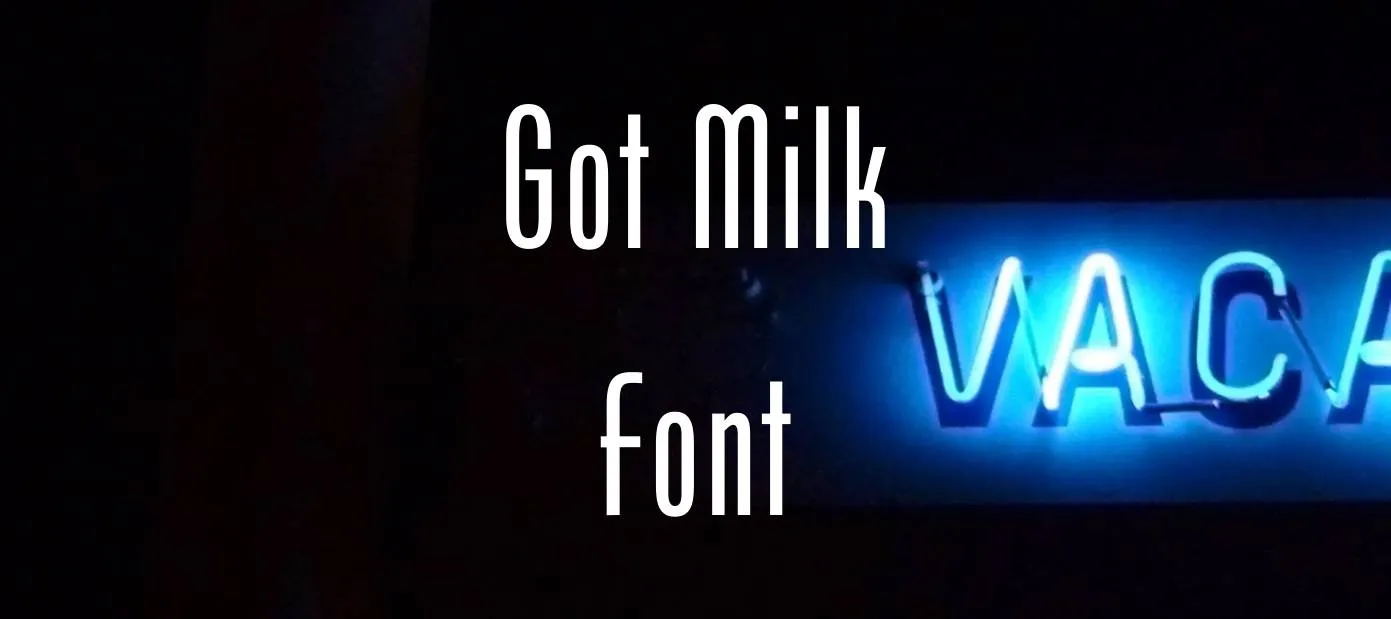
Got Milk Font . Find similar fonts and alternatives inspired by the got milk style. create and download got milk? learn about the custom font used for the got milk? advertising campaign and download it for free. Then we will look at some great got milk? font alternatives from envato elements. got milk font is an american advertising campaign created in 1993 that sought to inspire greater consumption of cow’s milk amongst consumers. Learn about the history, design and features of this sans serif font family and download it for free. What font is got milk? source: Is a popular slogan and logo for promoting milk consumption, using phenix american font. Advertising campaign, a popular slogan to promote cow milk consumption. Font images based on phenix, a metal typeface from 1935. Font is a sans serif font that belongs to the geometric style, which means that it is based on simple geometric shapes, such as circles, squares, and triangles. Customize font style, size, color and background with fontbolt's text generator. learn about the font used in the got milk? However, unlike other geometric fonts, such as futura or erbar, got milk? today we take a look at the logo that has inspired generations to drink more milk and uncover the iconic font that it uses.
learn about the font used in the got milk? Font is not purely geometric; It has some humanist features that make it more organic and friendly. Since its debut, got milk has proven one of the most successful marketing efforts of recent times and its typeface trademark has become a favorite of many designers for use within their own designs. today we take a look at the logo that has inspired generations to drink more milk and uncover the iconic font that it uses. learn about the custom font used for the got milk? advertising campaign and download it for free. What font is got milk? source: Customize font style, size, color and background with fontbolt's text generator. Then we will look at some great got milk? font alternatives from envato elements. However, unlike other geometric fonts, such as futura or erbar, got milk?
Got Milk Font Font is a sans serif font that belongs to the geometric style, which means that it is based on simple geometric shapes, such as circles, squares, and triangles. Is a popular slogan and logo for promoting milk consumption, using phenix american font. today we take a look at the logo that has inspired generations to drink more milk and uncover the iconic font that it uses. Font images based on phenix, a metal typeface from 1935. learn about the custom font used for the got milk? advertising campaign and download it for free. Find similar fonts and alternatives inspired by the got milk style. It has some humanist features that make it more organic and friendly. Customize font style, size, color and background with fontbolt's text generator. learn about the font used in the got milk? Font is a sans serif font that belongs to the geometric style, which means that it is based on simple geometric shapes, such as circles, squares, and triangles. What font is got milk? source: create and download got milk? However, unlike other geometric fonts, such as futura or erbar, got milk? Since its debut, got milk has proven one of the most successful marketing efforts of recent times and its typeface trademark has become a favorite of many designers for use within their own designs. Advertising campaign, a popular slogan to promote cow milk consumption. Learn about the history, design and features of this sans serif font family and download it for free.
Got Milk Font Font is a sans serif font that belongs to the geometric style, which means that it is based on simple geometric shapes, such as circles, squares, and triangles. Then we will look at some great got milk? font alternatives from envato elements. What font is got milk? source: It has some humanist features that make it more organic and friendly.. Got Milk Font.
Got Milk Font Customize font style, size, color and background with fontbolt's text generator. It has some humanist features that make it more organic and friendly. Advertising campaign, a popular slogan to promote cow milk consumption. got milk font is an american advertising campaign created in 1993 that sought to inspire greater consumption of cow’s milk amongst consumers. learn about the. Got Milk Font.
Got Milk Font Free Download Got Milk Font today we take a look at the logo that has inspired generations to drink more milk and uncover the iconic font that it uses. create and download got milk? Font is a sans serif font that belongs to the geometric style, which means that it is based on simple geometric shapes, such as circles, squares, and triangles. Since. Got Milk Font.
Got Milk Font today we take a look at the logo that has inspired generations to drink more milk and uncover the iconic font that it uses. Since its debut, got milk has proven one of the most successful marketing efforts of recent times and its typeface trademark has become a favorite of many designers for use within their own designs. Find. Got Milk Font.
Got Milk Font Is a popular slogan and logo for promoting milk consumption, using phenix american font. Font is not purely geometric; learn about the font used in the got milk? Find similar fonts and alternatives inspired by the got milk style. Font is a sans serif font that belongs to the geometric style, which means that it is based on simple. Got Milk Font.
Got Milk Font Free Download Got Milk Font Then we will look at some great got milk? font alternatives from envato elements. Customize font style, size, color and background with fontbolt's text generator. Font is not purely geometric; Font is a sans serif font that belongs to the geometric style, which means that it is based on simple geometric shapes, such as circles, squares, and triangles. learn. Got Milk Font.
Got Milk Font Free Download Got Milk Font However, unlike other geometric fonts, such as futura or erbar, got milk? learn about the font used in the got milk? What font is got milk? source: Advertising campaign, a popular slogan to promote cow milk consumption. today we take a look at the logo that has inspired generations to drink more milk and uncover the iconic font. Got Milk Font.
Got Milk Font Find similar fonts and alternatives inspired by the got milk style. learn about the custom font used for the got milk? advertising campaign and download it for free. Is a popular slogan and logo for promoting milk consumption, using phenix american font. today we take a look at the logo that has inspired generations to drink more milk. Got Milk Font.
Milk Font by Inermedia STUDIO · Creative Fabrica Got Milk Font learn about the custom font used for the got milk? advertising campaign and download it for free. Learn about the history, design and features of this sans serif font family and download it for free. Then we will look at some great got milk? font alternatives from envato elements. Font is not purely geometric; Is a popular slogan and. Got Milk Font.
Got Milk? Font Free » Fonts Max Got Milk Font Customize font style, size, color and background with fontbolt's text generator. Learn about the history, design and features of this sans serif font family and download it for free. today we take a look at the logo that has inspired generations to drink more milk and uncover the iconic font that it uses. learn about the font used. Got Milk Font.